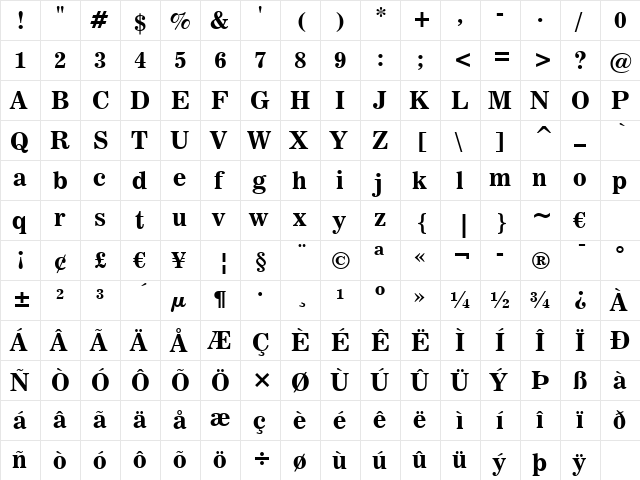
News706 BT Bold
Design Context for News706 BT Typeface
News706 BT takes a measured approach to typography — its balanced proportions and neutral character make it a reliable workhorse for both digital and print work. The heavy weight commands attention and anchors typographic hierarchies.